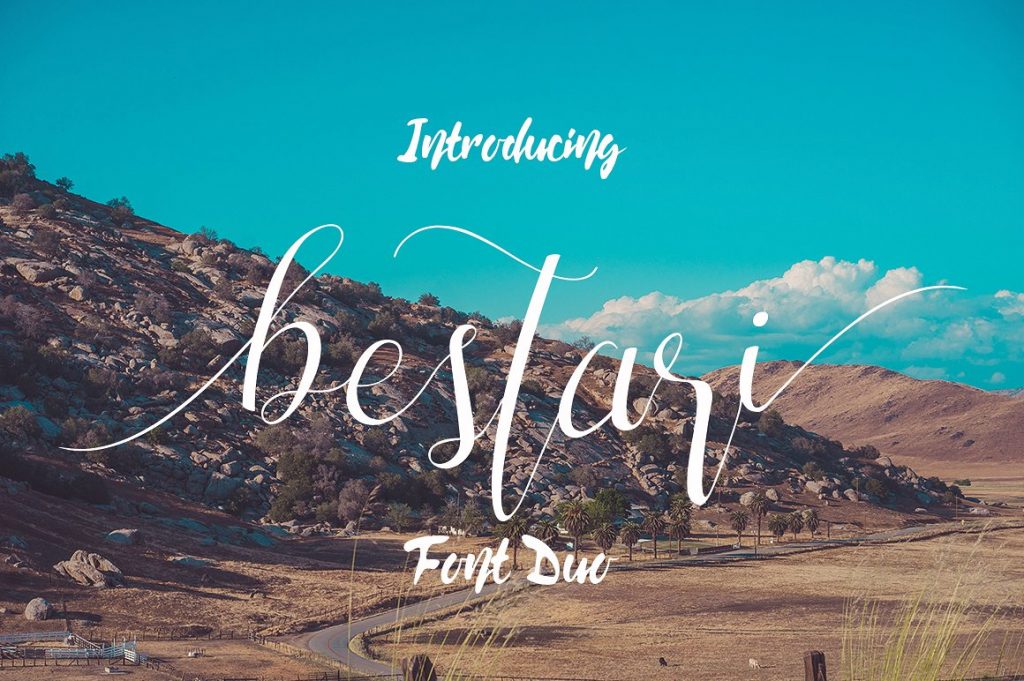
Bestari Script
Bestari Script Font
Bestari is clean brush font and modern calligraphy, every single letters have been carefully crafted to make your text looks beautiful. With modern script style this font will perfect for many different project ex: quotes, blog header, poster, wedding, branding, logo, fashion, apparel, letter, invitation, stationery, etc.